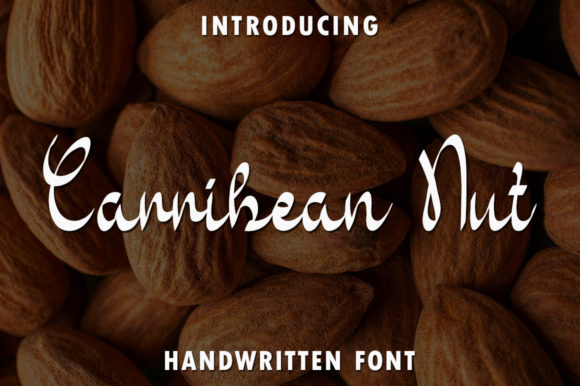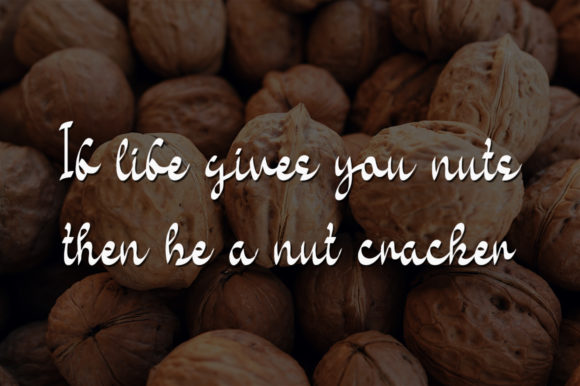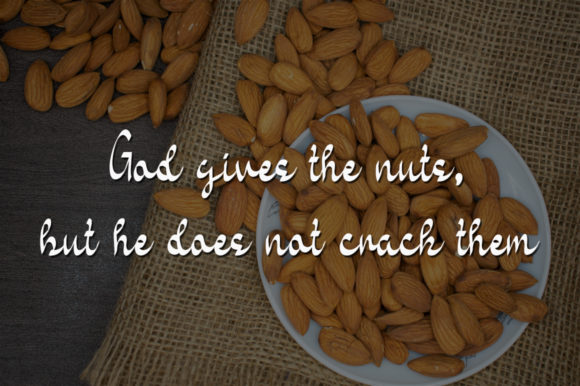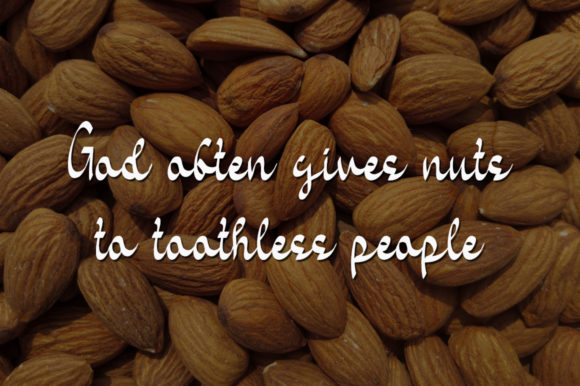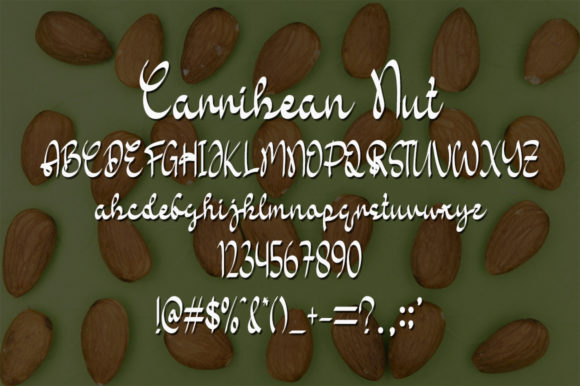
Carribean Nut Font
About Carribean Nut Font
Carribean Nut is a sweet and delicate handwritten font. Dainty and joyful, this font will be ideal for writing wedding invitations, cards or any other design that may need a romantic, personalized touch!